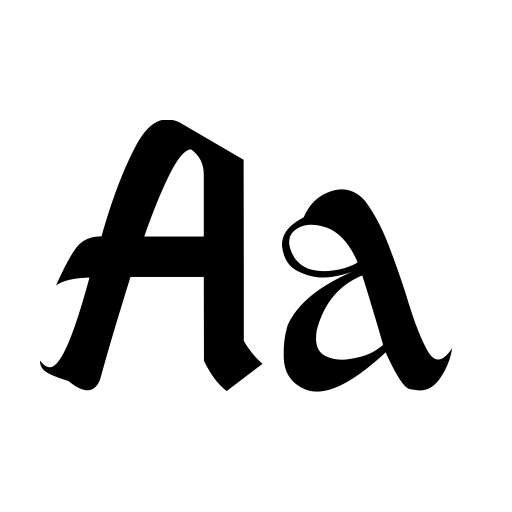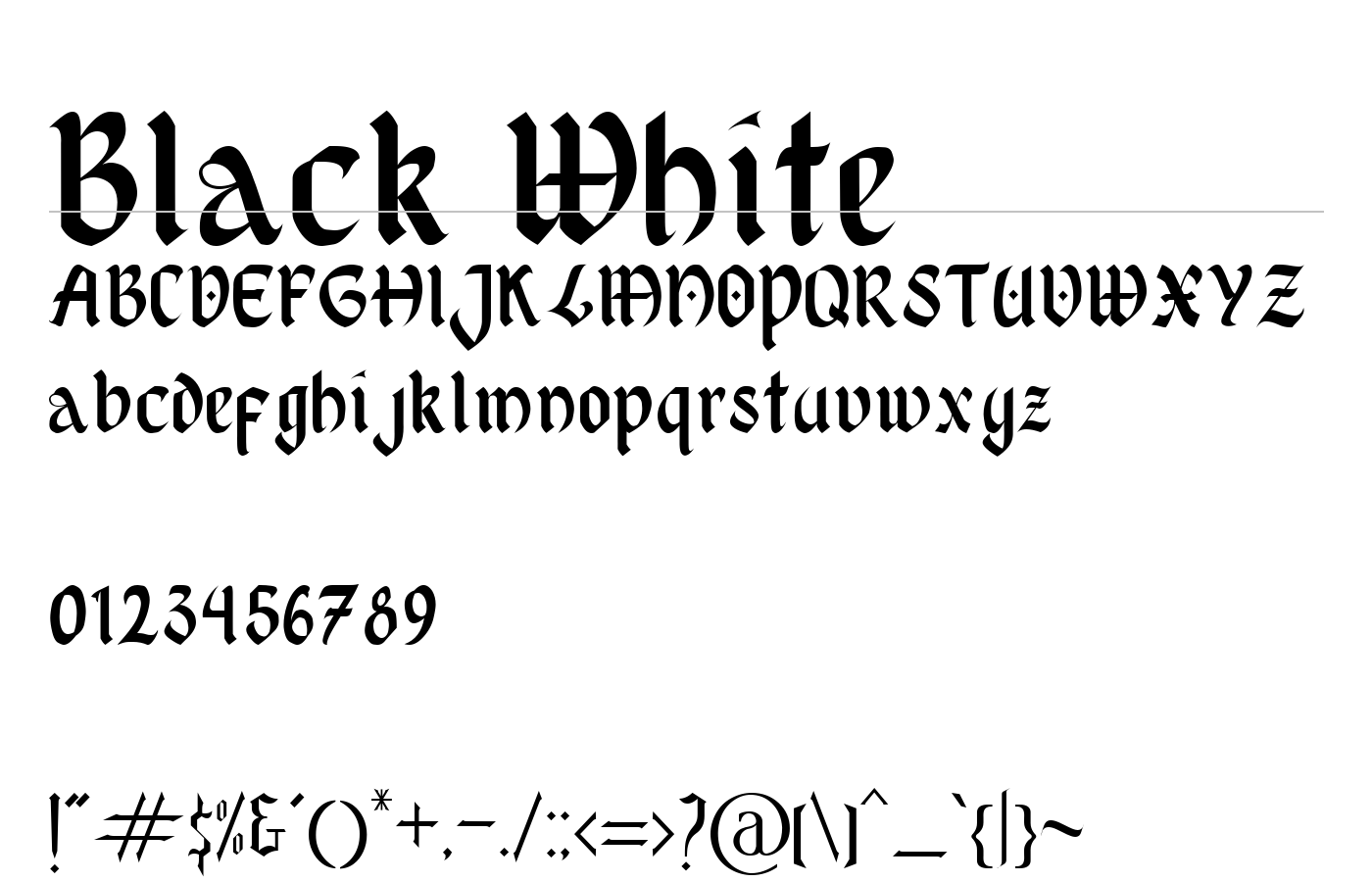
Black White is a bold blackletter serif font with sharp, angular strokes and strong contrast that evoke a vintage, gothic feel. Its distinct letterforms with decorative elements make it ideal for dramatic headlines, logos, or branding projects seeking a historic or medieval-inspired style. This font works best in display sizes where its unique character and ornate details can truly stand out.
Black White Font
About Black White Font
| Font family | Black White Font |